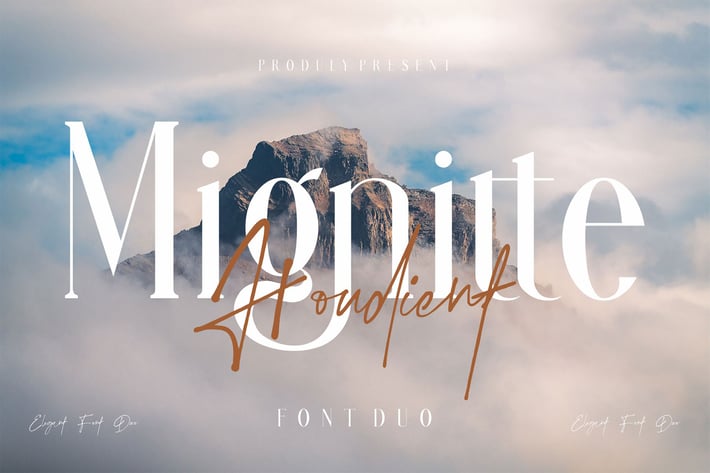
Mignitte & Houdient Duo Font
Mignitte & Houdient Signature - Stylish Duo Typeface Serif inspired by the famous minimalist logo perfect for the purposes of designing templates, brochures, videos, advertising branding, logos and more.
+ International Accent